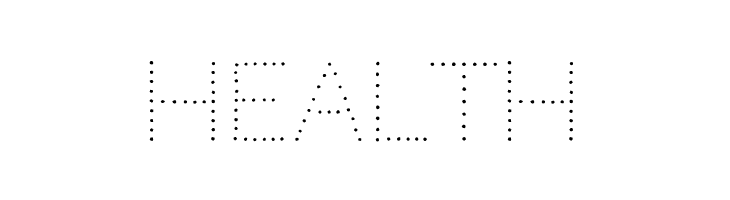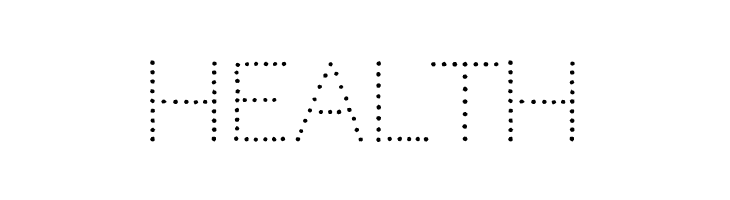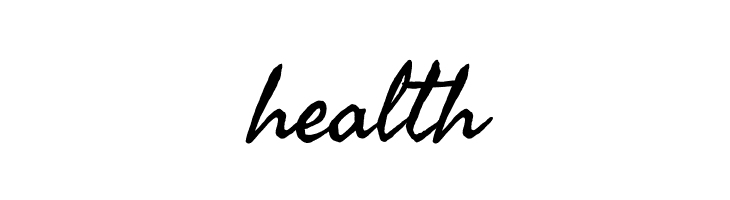
A whimsical, curly serif font with a playful, hand-drawn style.
A modern, dotted font with a playful and airy design.
A playful, dotted font ideal for creative and modern designs.
A whimsical font with curly, decorative elements, perfect for magical or fantasy themes.
A lively and energetic script font with bold, flowing cursive letterforms.
A playful, bold font with a hand-drawn, whimsical style.
An elegant and whimsical script font with decorative swirls and playful flourishes.
A whimsical and playful font with curly serifs and decorative elements.